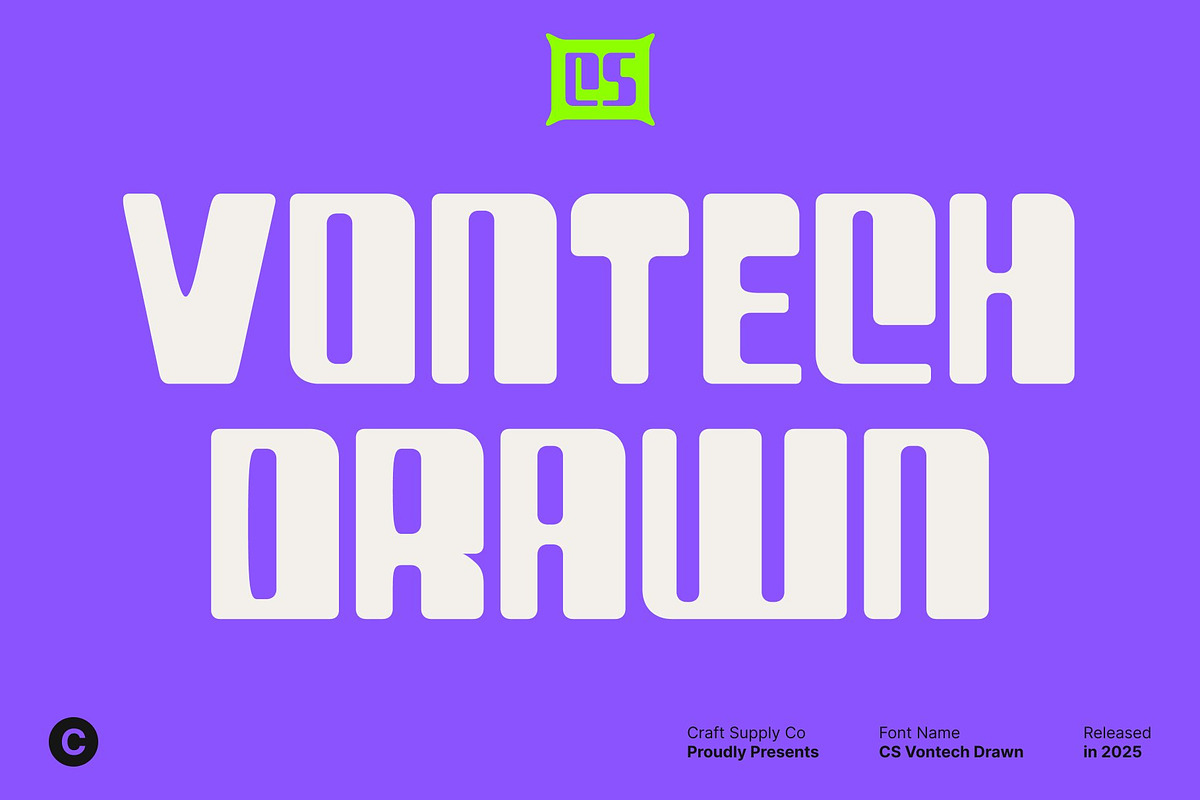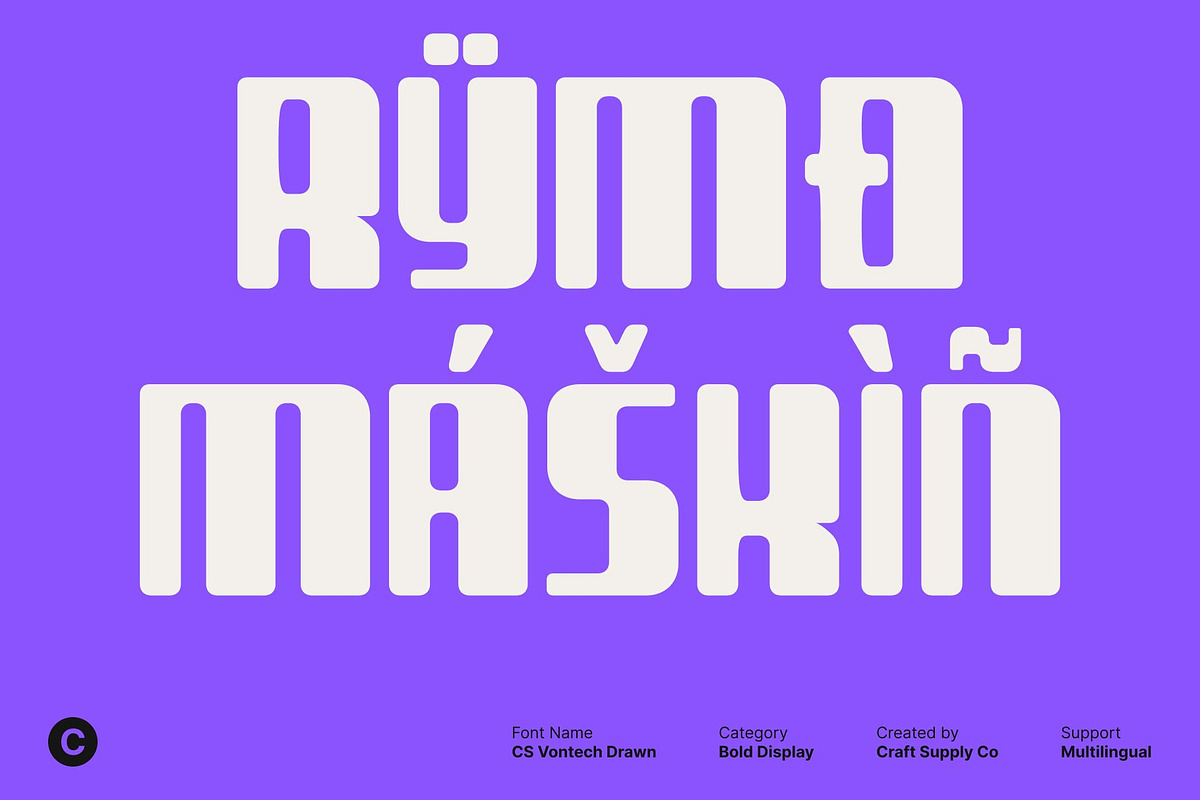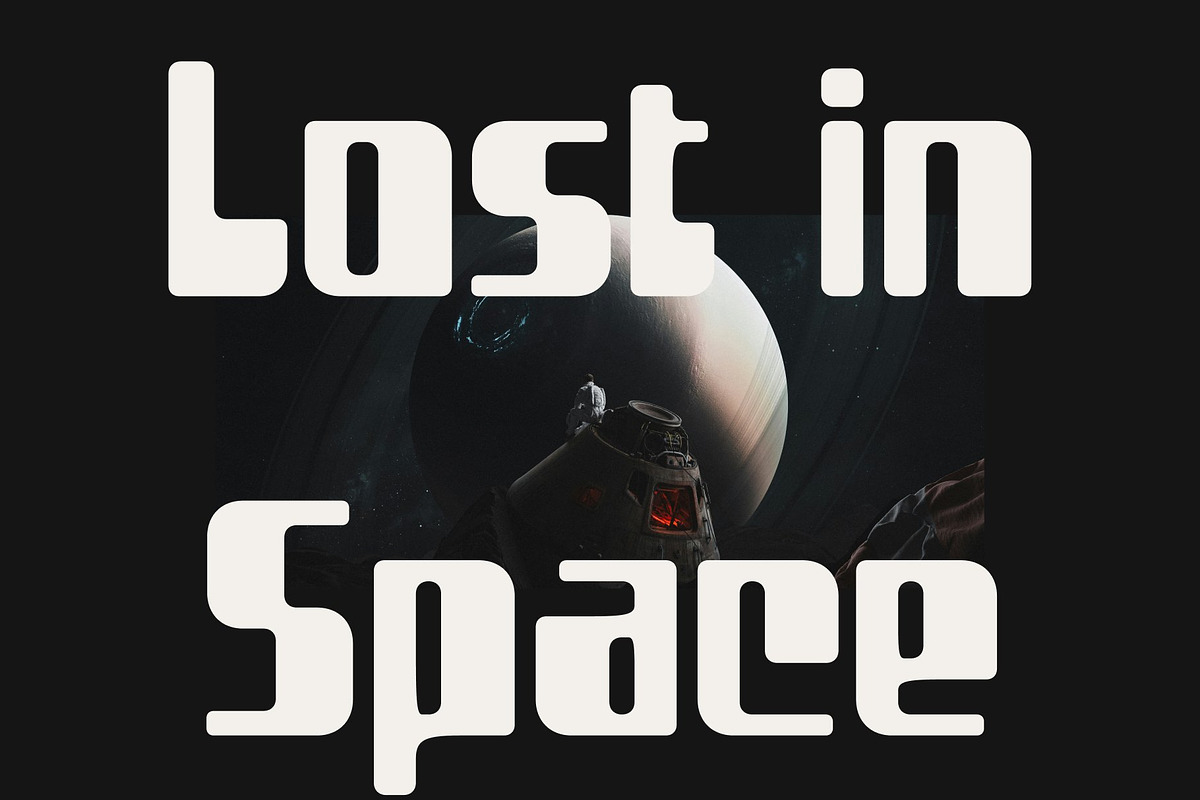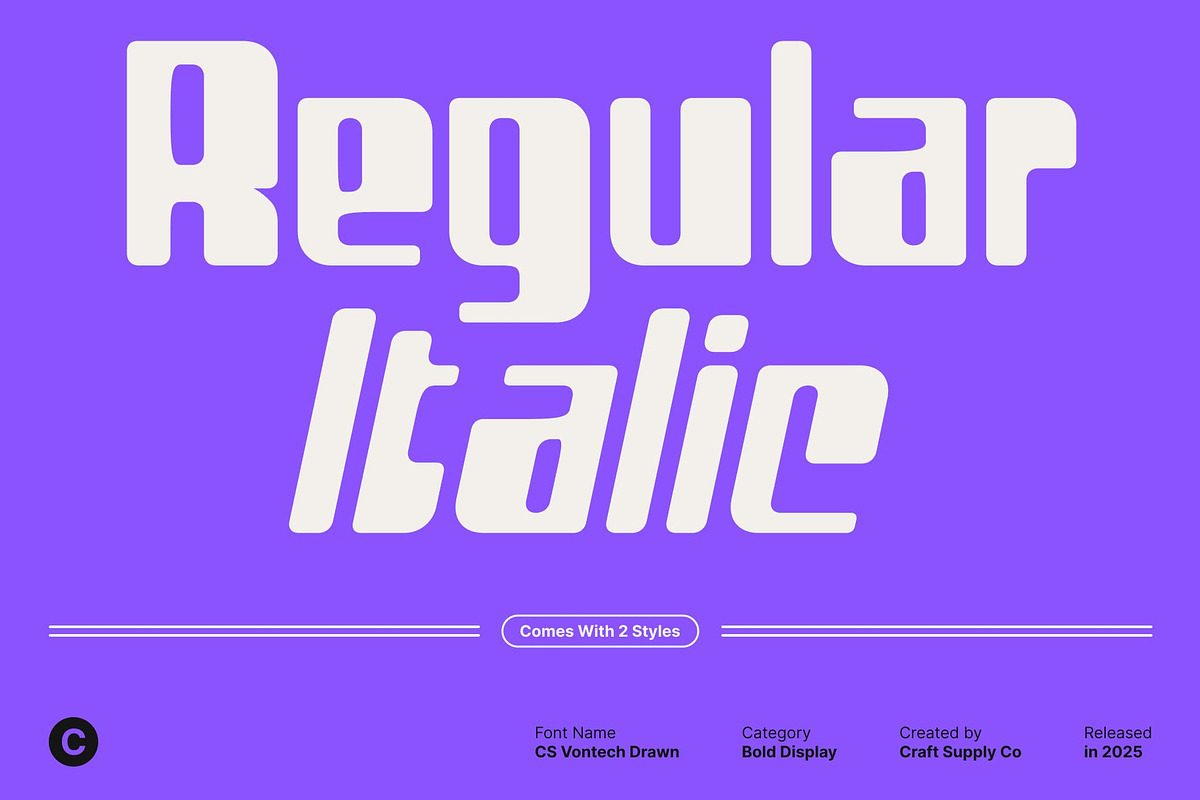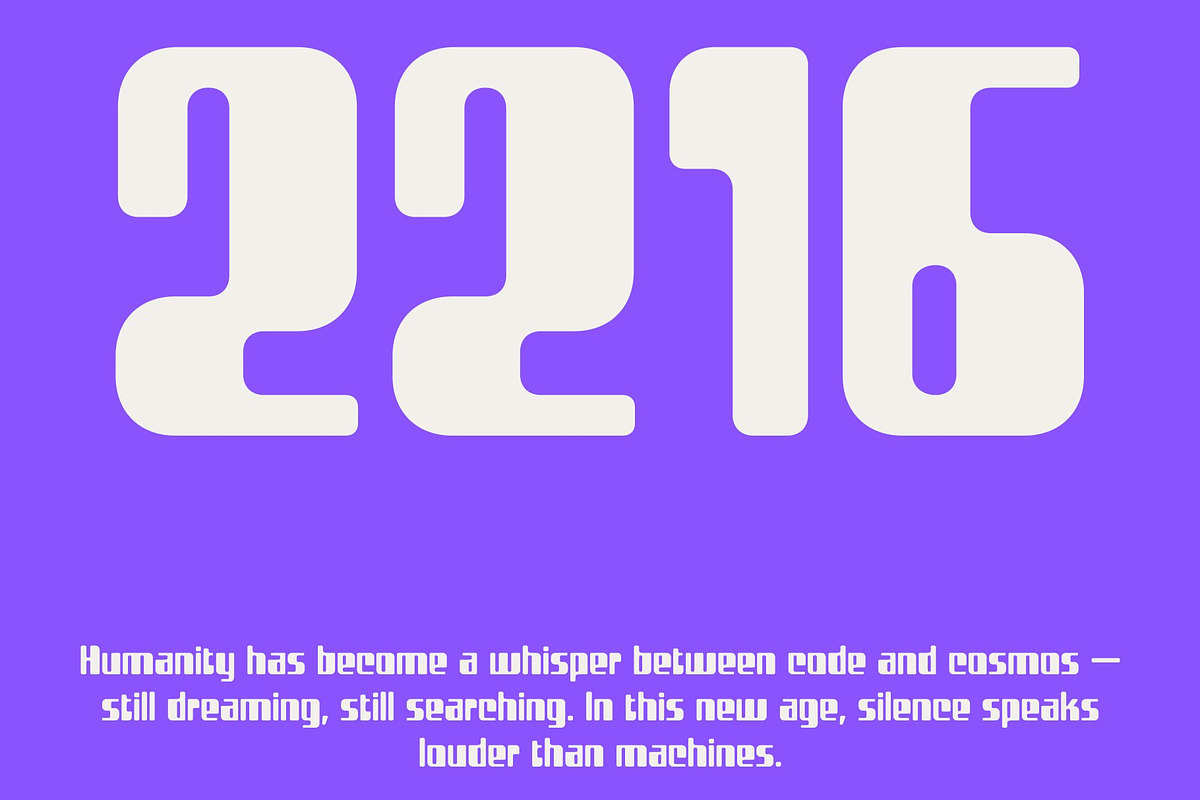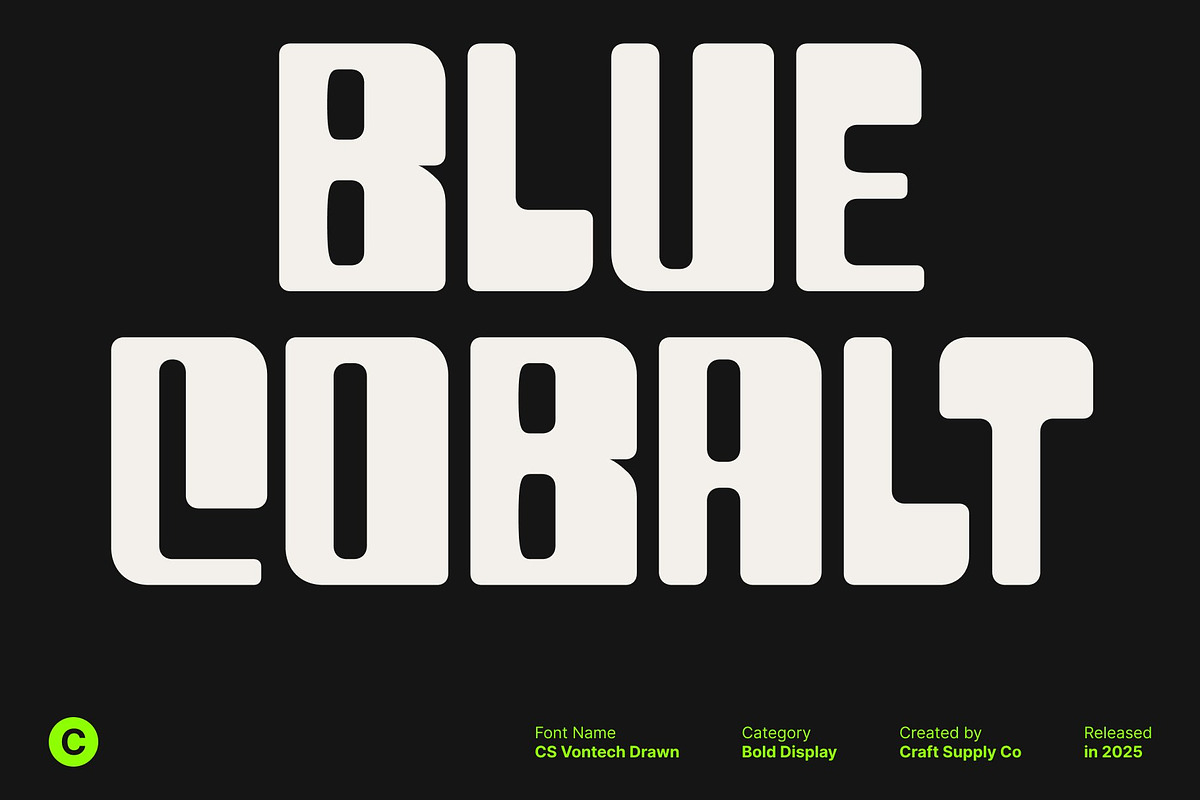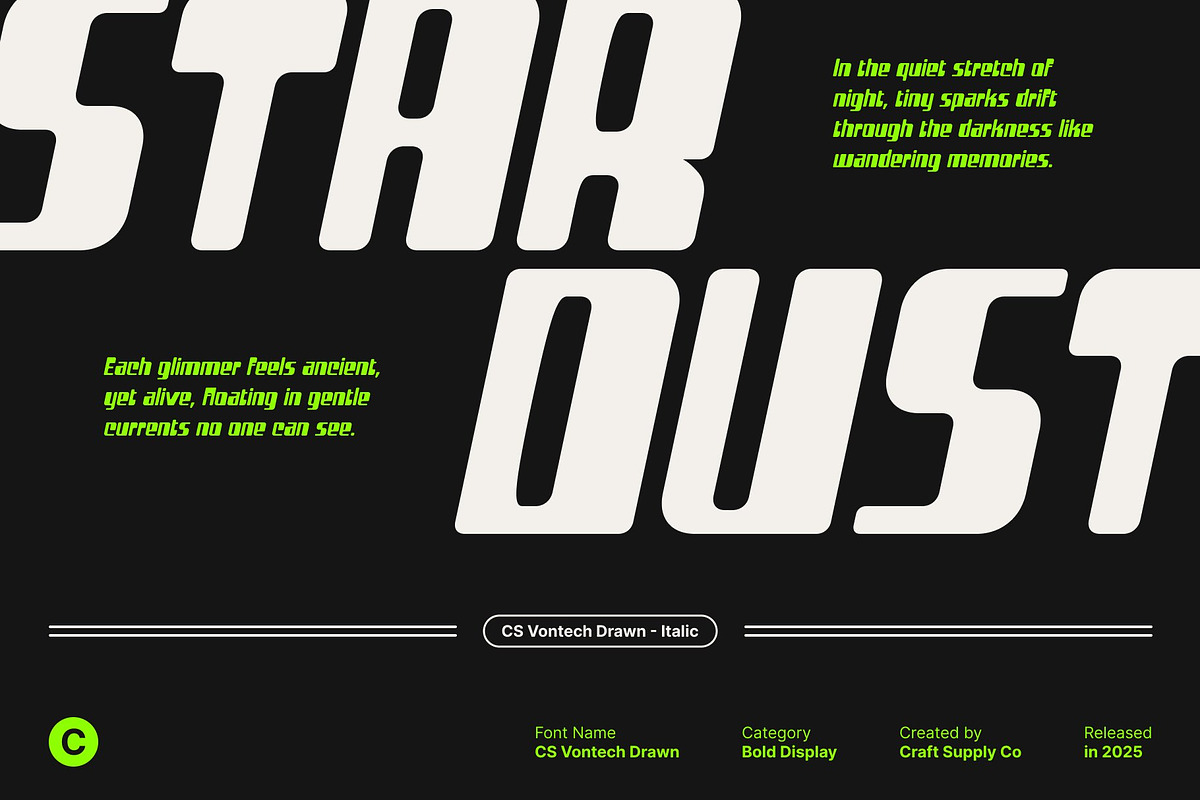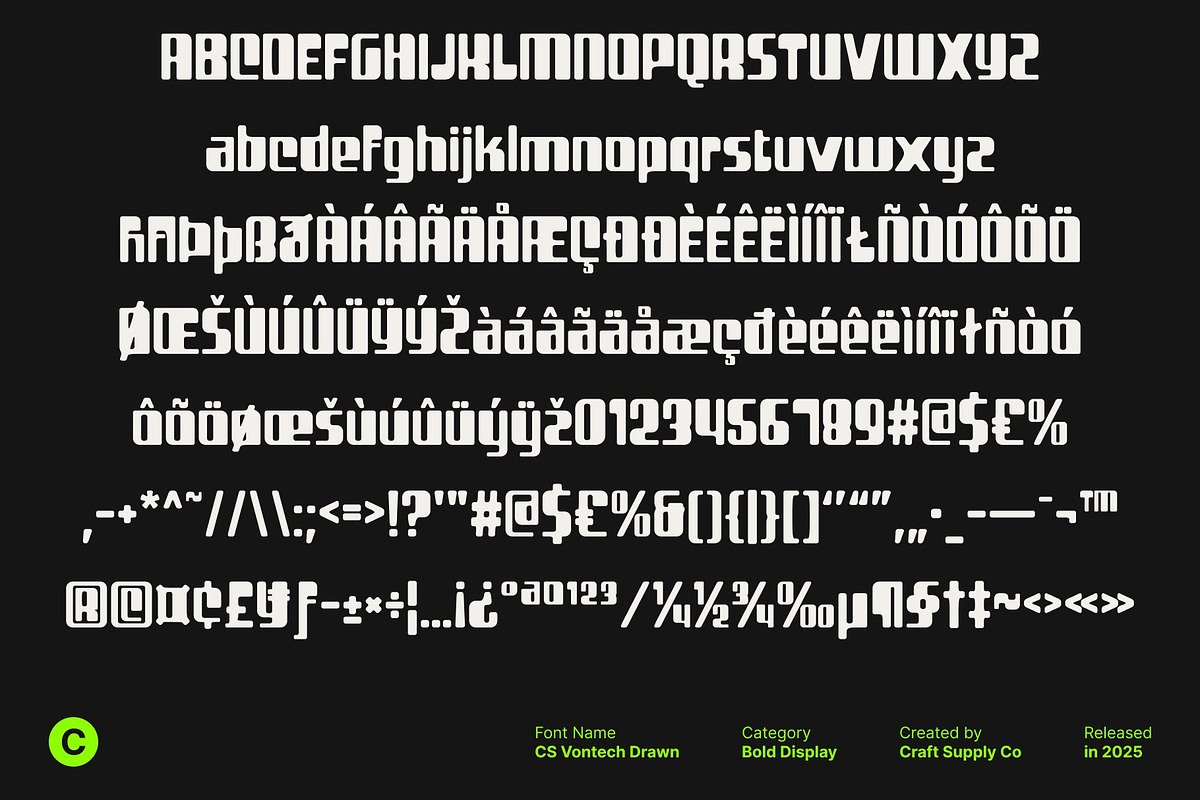
CS Vontech Drawn
CS Vontech Drawn – Futuristic Techno Sans Serif with Artistic Texture
Bold and Futuristic Letterforms This is a techno-inspired sans serif font designed to deliver modern energy and visual impact. Its bold, striking letterforms create a powerful presence that immediately grabs attention. The geometric precision combined with futuristic styling makes it ideal for projects seeking a cutting-edge, contemporary look.
Drawn Effect for Artistic Texture The added drawn effect gives this font a handcrafted, textured quality that enhances its visual character. This artistic touch transforms each letter into a unique design element, blending precision with organic expression. The result is a font that feels both futuristic and dynamic, perfect for designers who want to combine structure with creativity.
Perfect for Branding, Logos, and Posters This font excels in display applications where impact matters most. Its bold, energetic forms ensure strong readability, while the drawn texture adds intrigue and originality. Whether applied to branding, logo design, promotional materials, or poster graphics, this font delivers a striking and memorable visual impression.
A Versatile Display Font with Modern Edge By merging techno-inspired precision with textured artistic flair, this font offers a versatile tool for designers. It balances futuristic style with creative expression, making it suitable for high-tech branding, digital projects, and editorial designs. This font transforms standard text into a visually compelling and energetic statement.